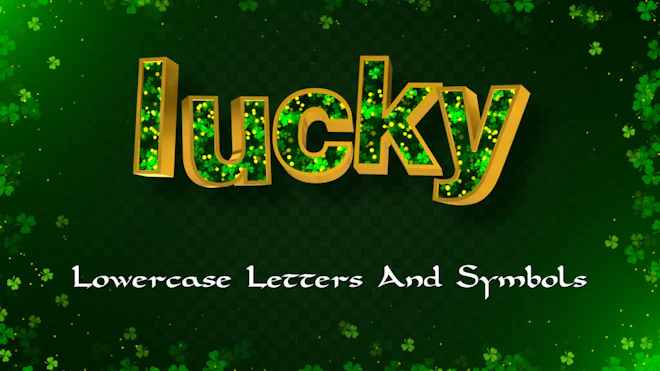
Pack Of 38 St Patrick's Day Floating Gold Lowercase Typeface On Alpha Loop
This stock motion graphics video pack includes 38 clips of St. Patrick's Day floating gold lowercase letters and symbols on a transparent alpha channel in a seamless loop.